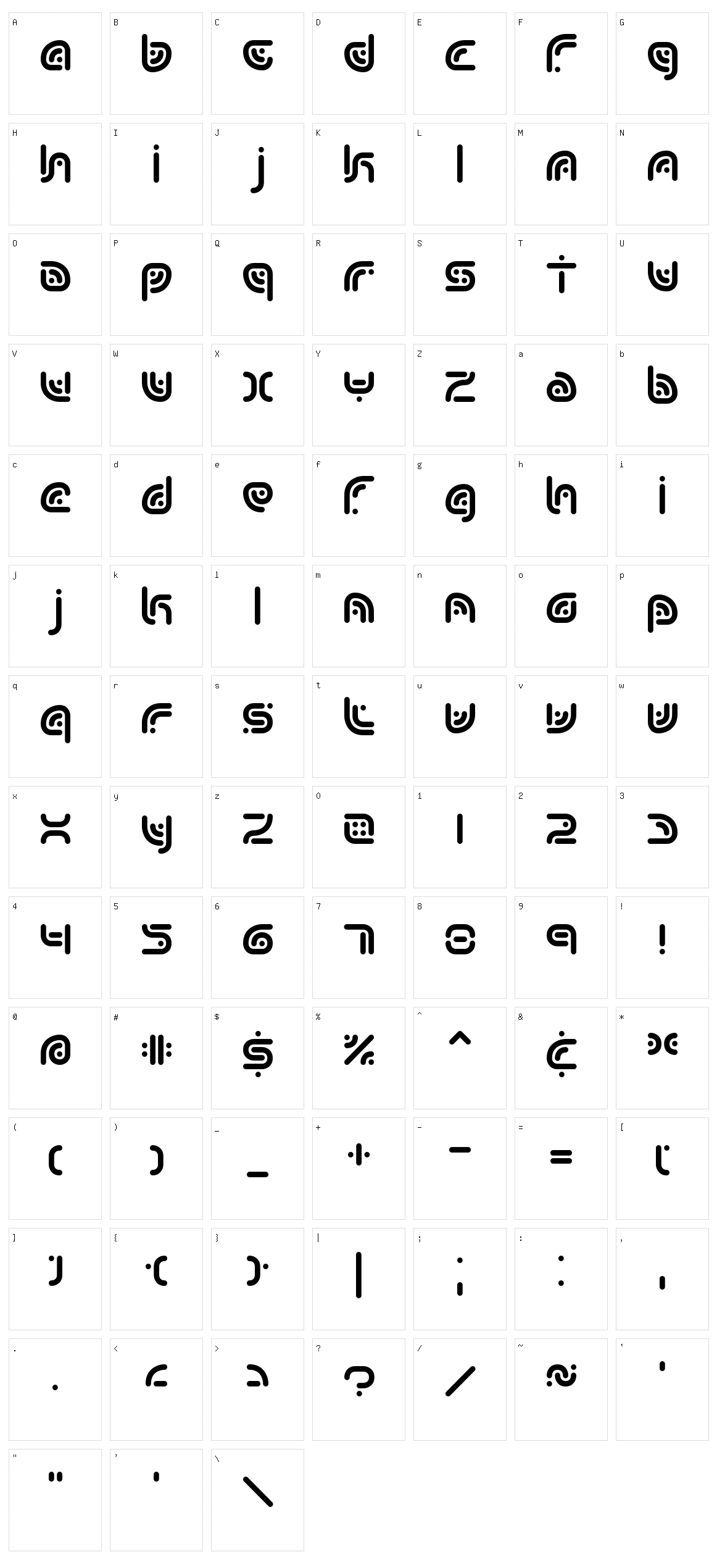
Sequence
Designed by: Ænigma
Sequence Created by Brian Kent
There are some alternative extra characters included in this font.
[KEY]
EXTRA CHARACTER = ACTUAL CHARACTER = ALT# CODE
a = È = ALT+0200
b = É = ALT+0201
d = Ê = ALT+0202
e = Ë = ALT+0203
g = Ì = ALT+0204
p = Í = ALT+0205
q = Î = ALT+0206
z = Ï = ALT+0207
0 = Ð = ALT+0208
2 = Ñ = ALT+0209
3 = Ò = ALT+0210
4 = Ó = ALT+0211
5 = Ô = ALT+0212
9 = Õ = ALT+0213
# = Ö = ALT+0214
@ = × = ALT+0215
[ = Ø = ALT+0216
] = Ù = ALT+0217